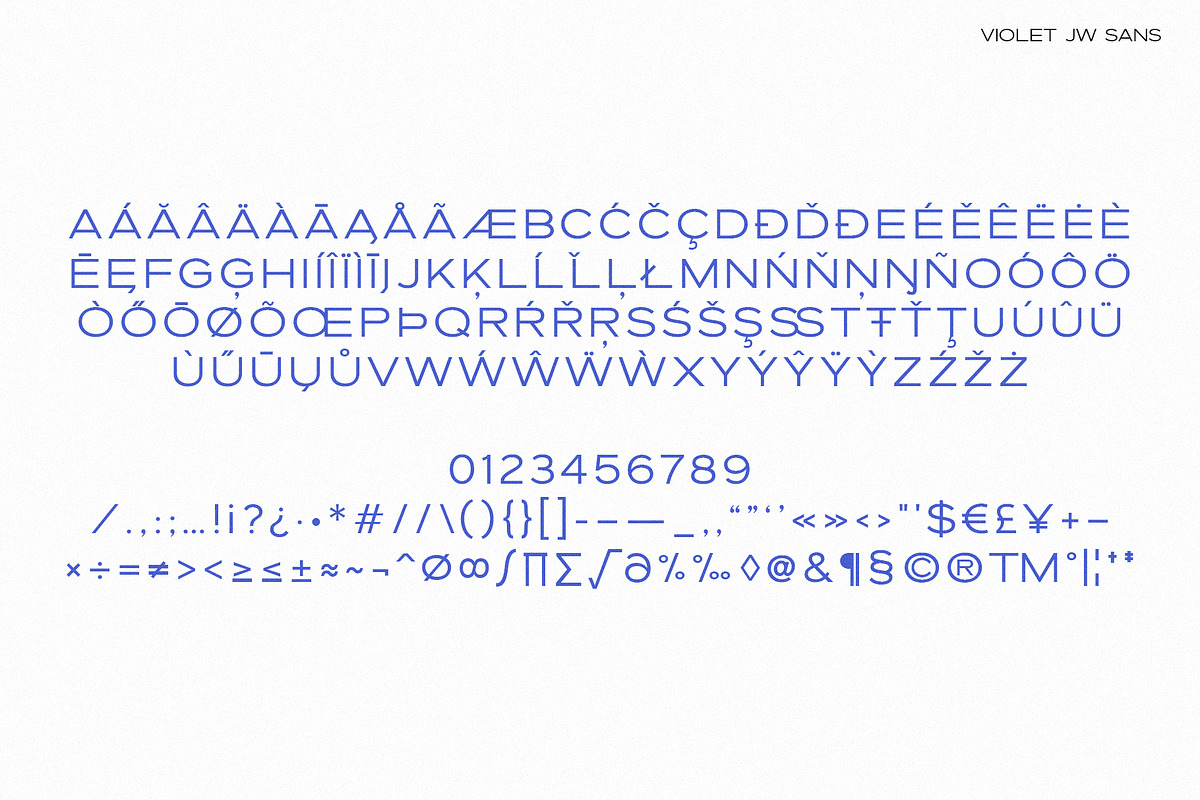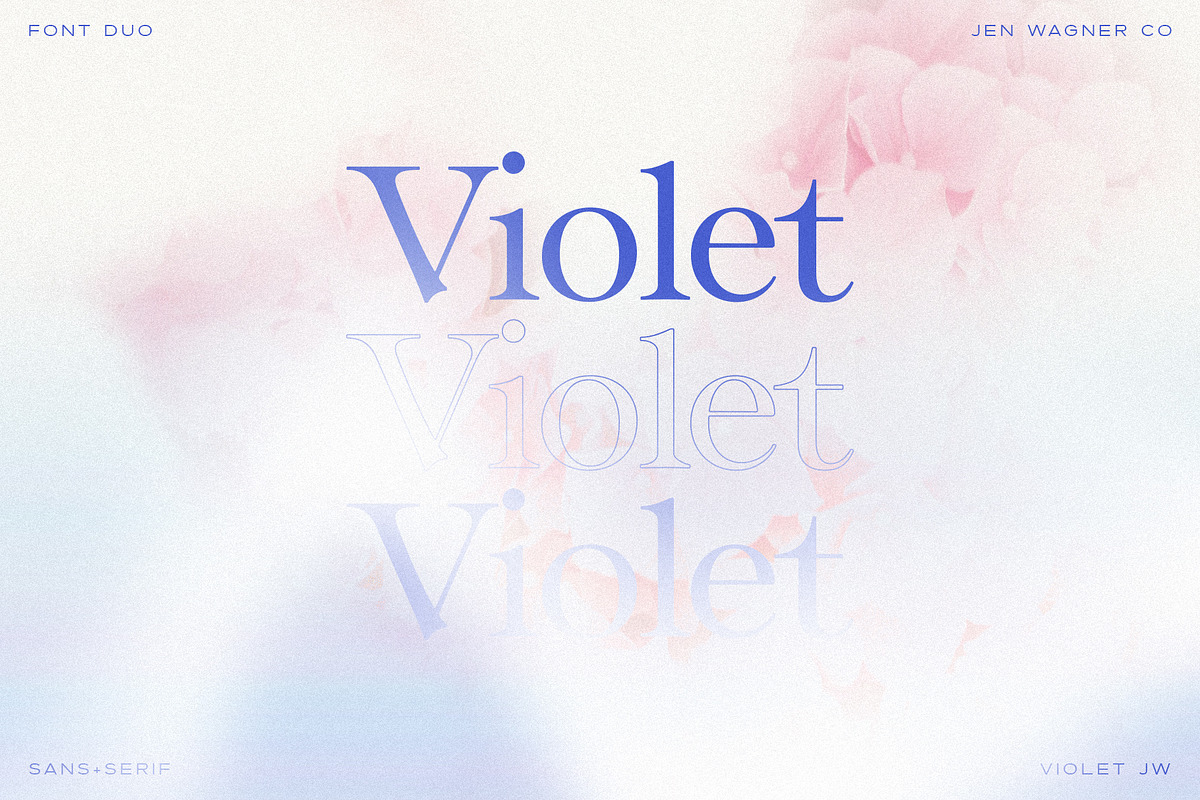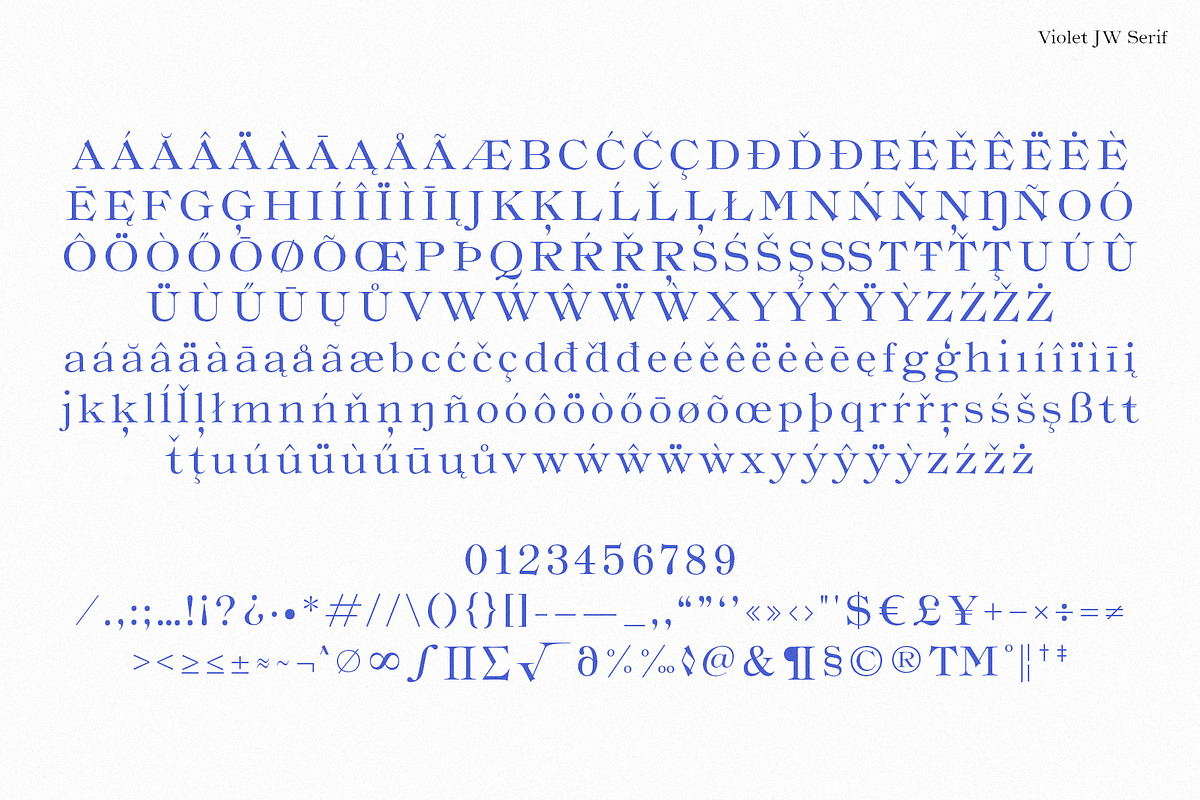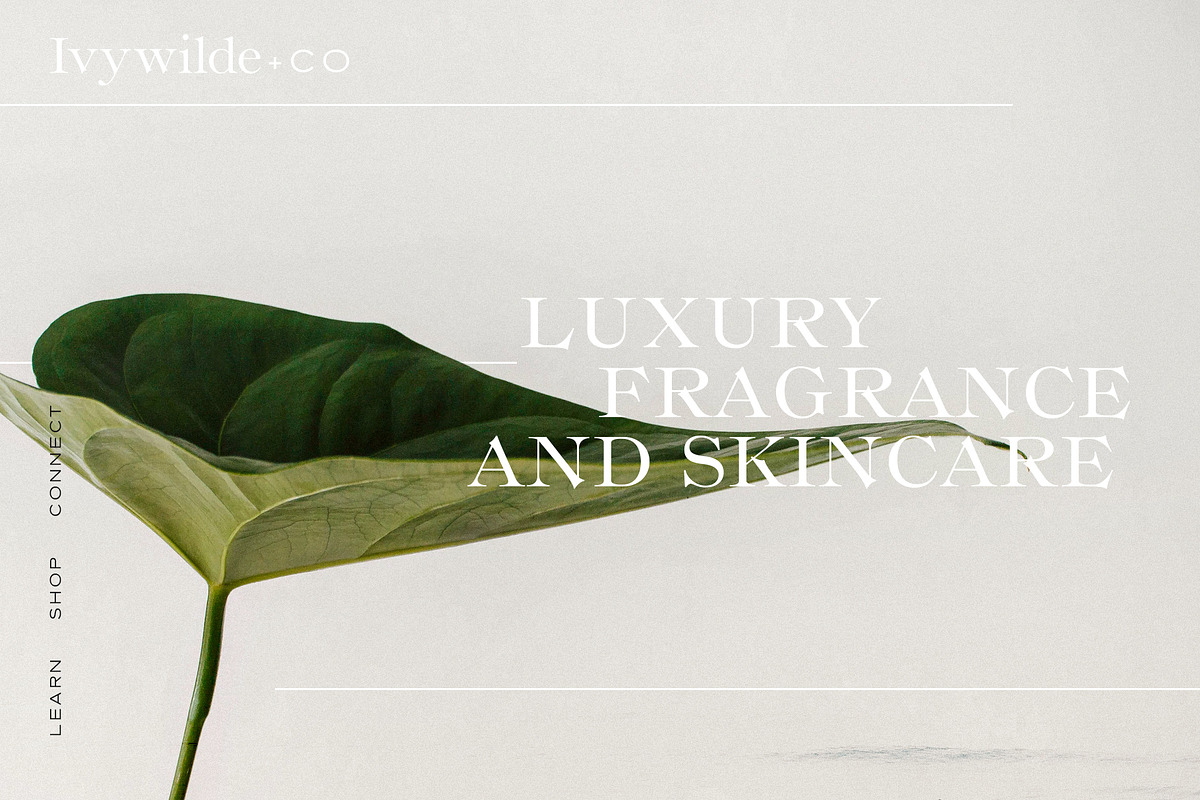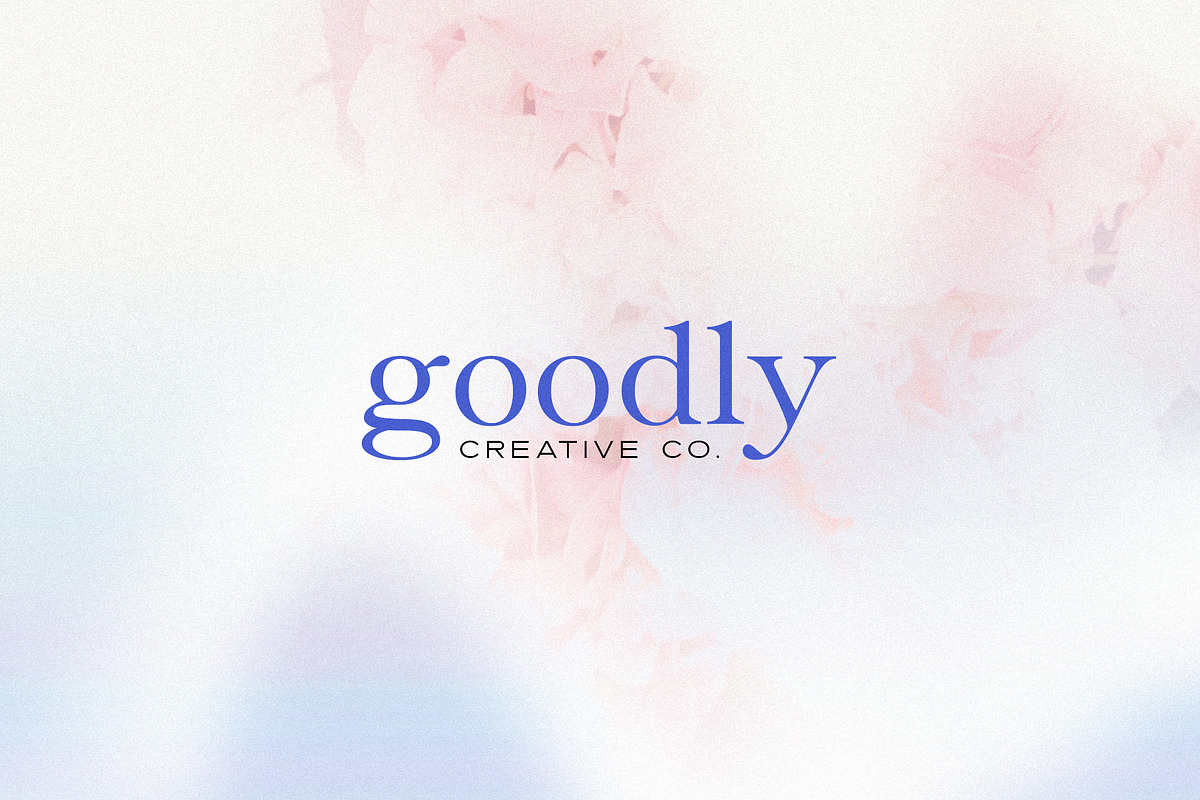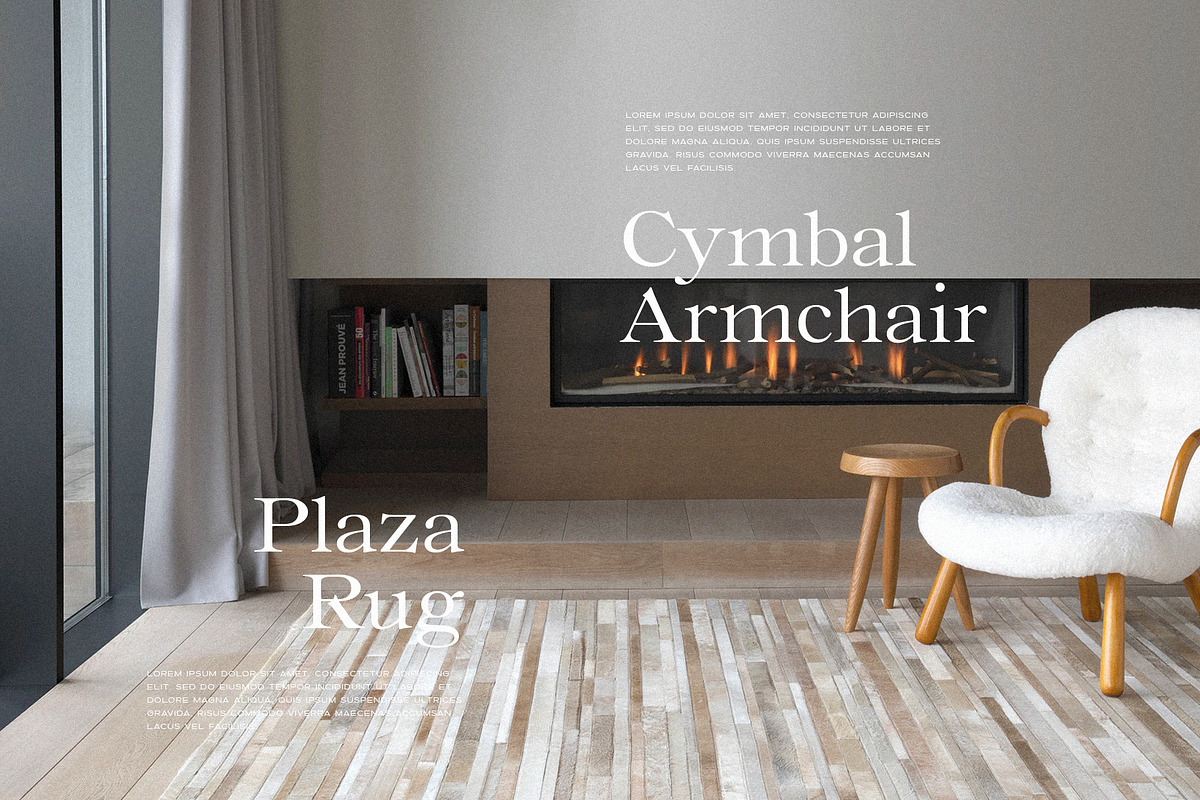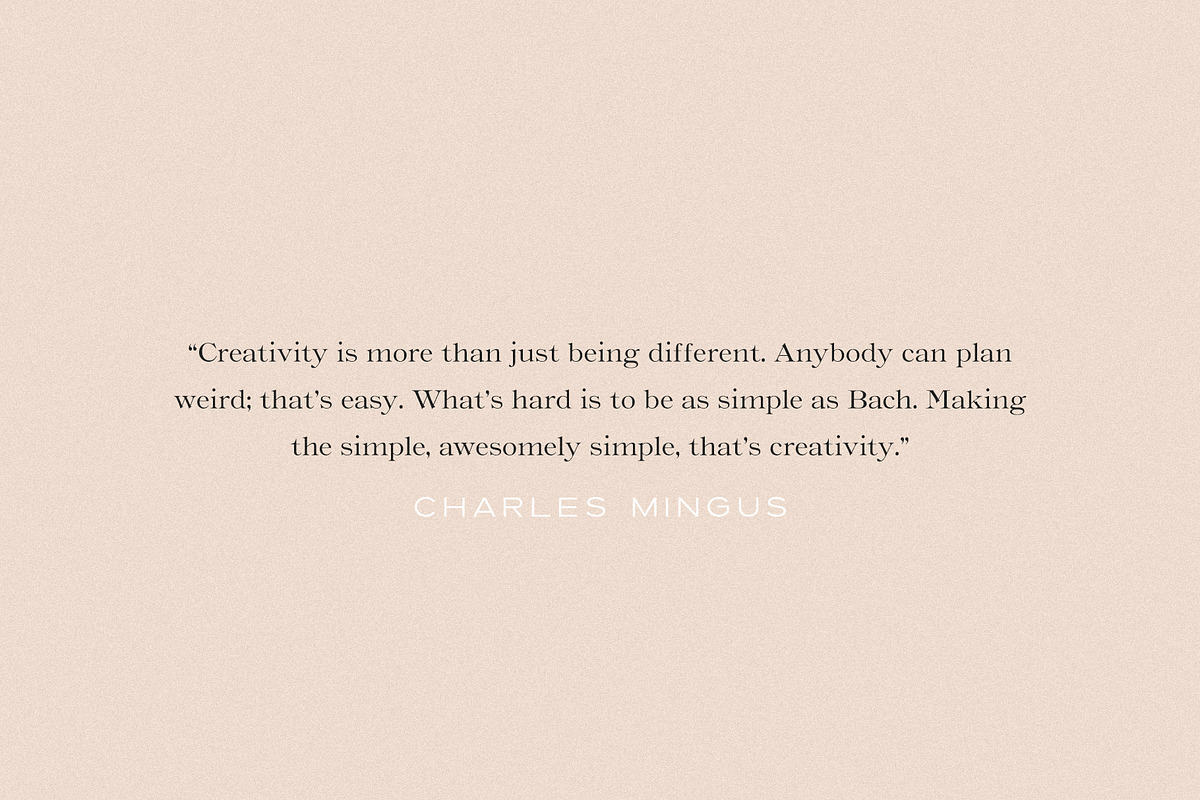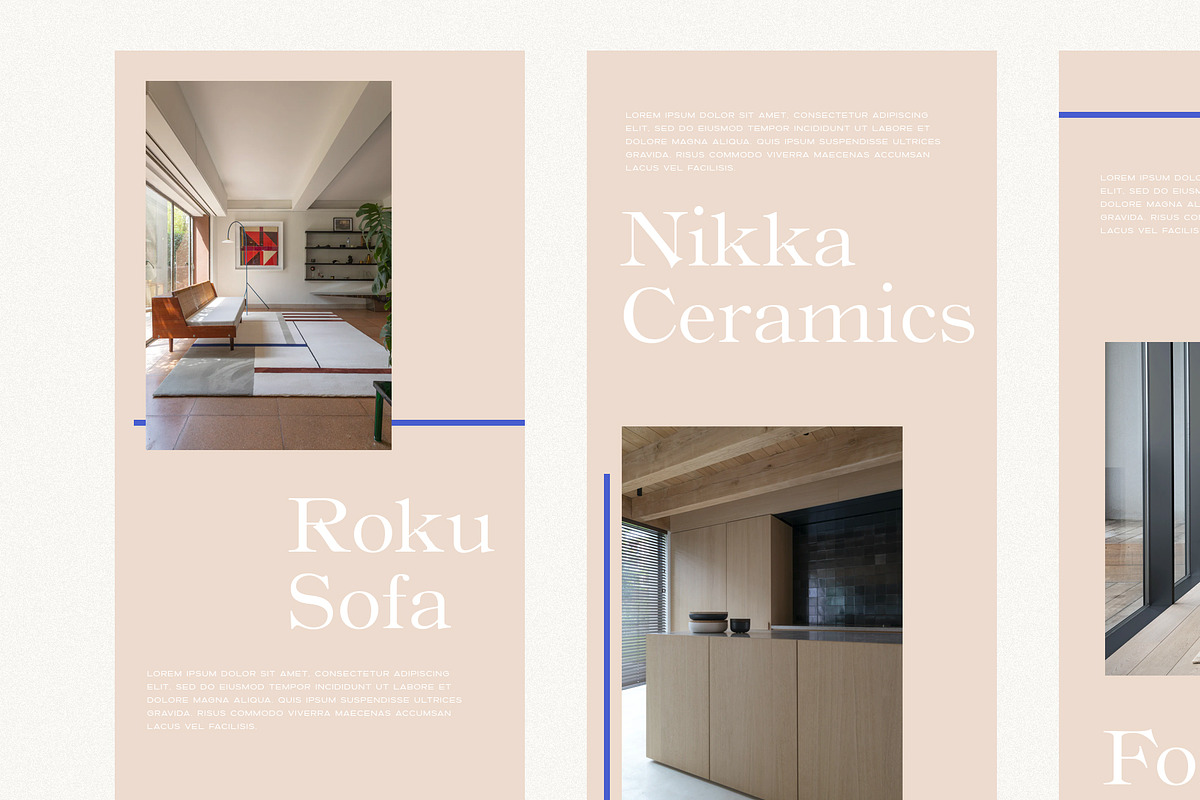
Violet JW Professional Font Duo
Violet JW Serif: Uppercase & lowercase letters, numbers, & extended punctuation
Violet JW Serif Outline: Uppercase & lowercase letters, numbers, & extended punctuation in a thin outline font, so you don't have to spend time creating tricky strokes
Violet JW Sans: Uppercase letters, numbers, & extended punctuation
Non-English support for the international designer
Violet JW has been a labor of love, intended to create the perfect professional serif/sans duo for gorgeous branding, web, and print work.
Inspired by letterpress serifs from the 1800s, Violet JW was created to put a modern spin on a classical serif, helping make the search for a timeless font pairing totally simple.
Clean, precise lines make Violet JW a beautiful font pair to use in both large and small contexts, from signage to print
Rounded corners on the serif for beautiful flow, and crisp corners on the sans for subtle contrast
Use the regular & outline serif to create cohesive contrast in seconds
Quickly create logos by pairing Violet JW Serif & Sans together